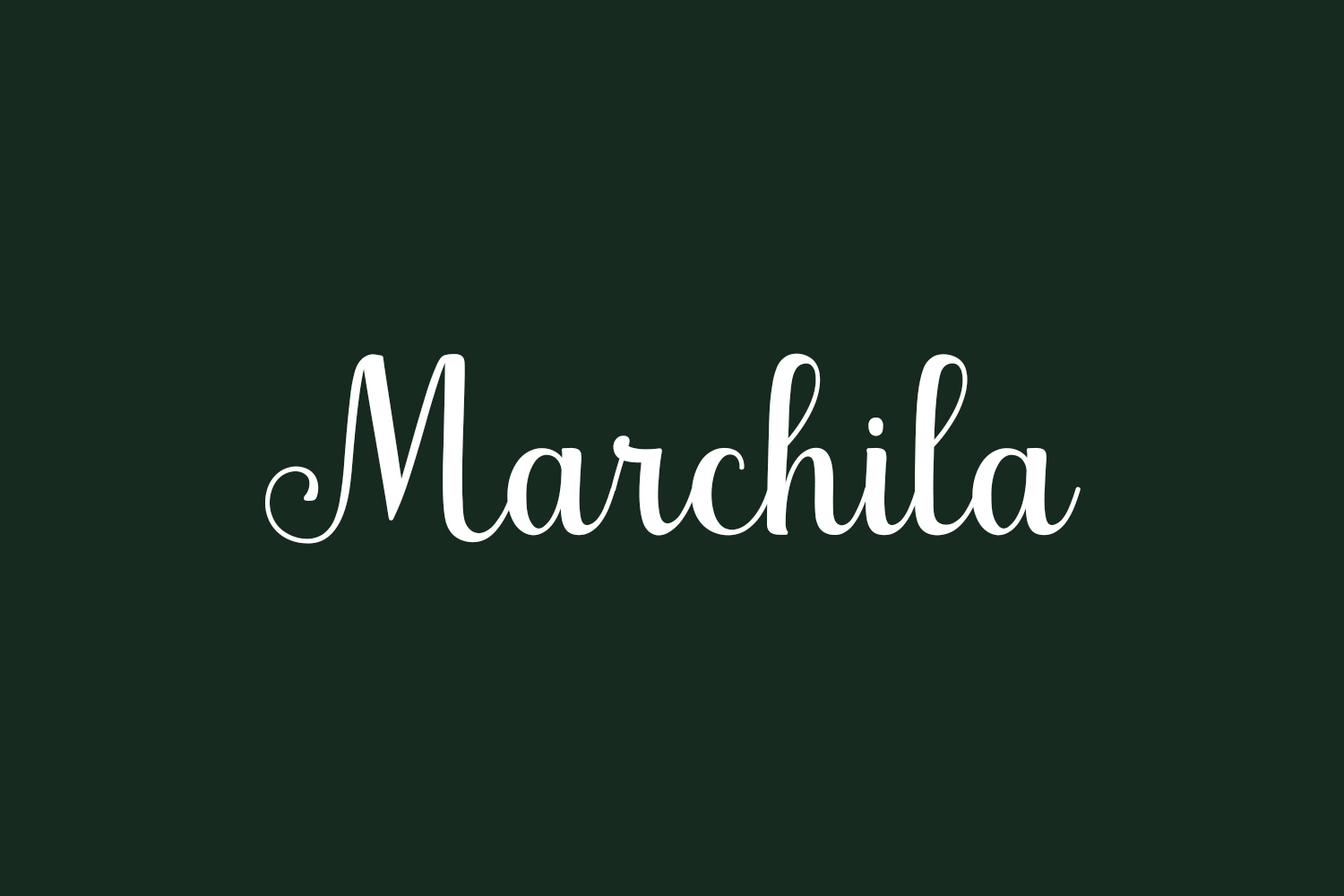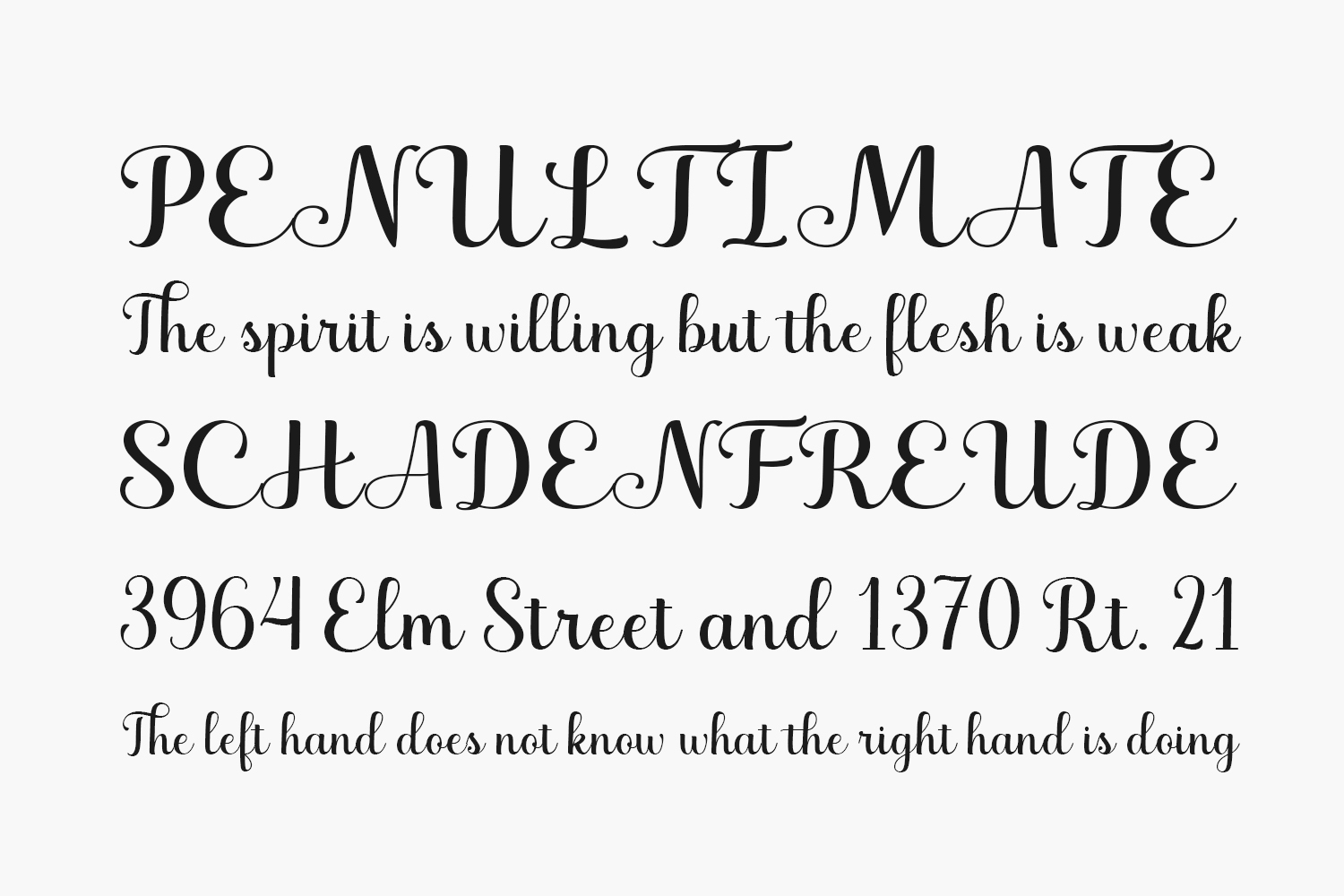
Marchila Free Font is a lovely and delicate script font that exudes elegance and class. This font was particularly crafted for those who need a beautiful and refreshing look to their designs. Marchila Free Font was designed by Manjali Studio and is free for personal use only. Please purchase the full version for commercial use.